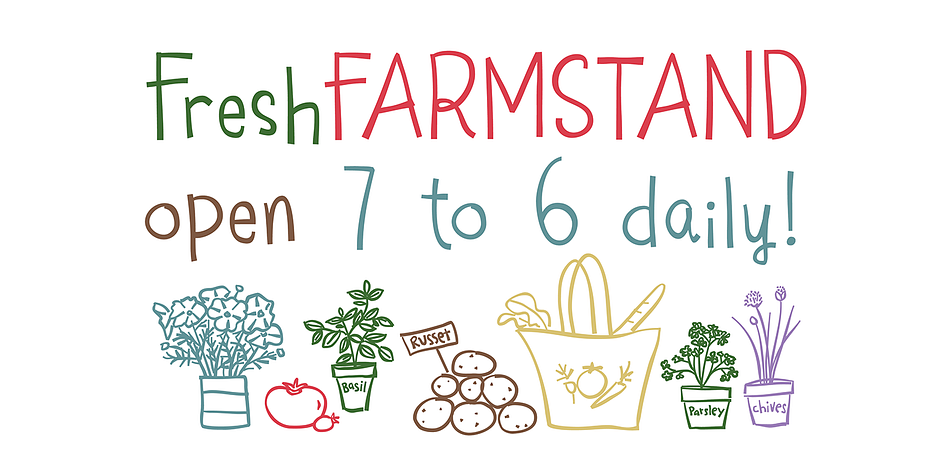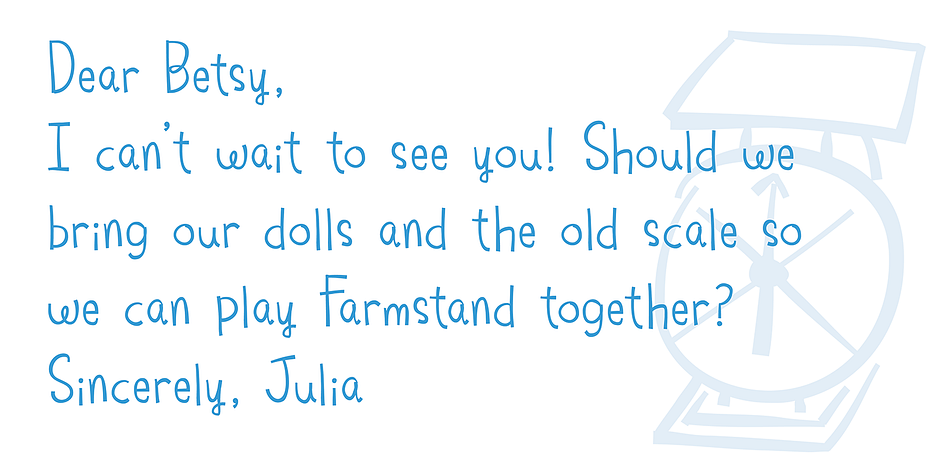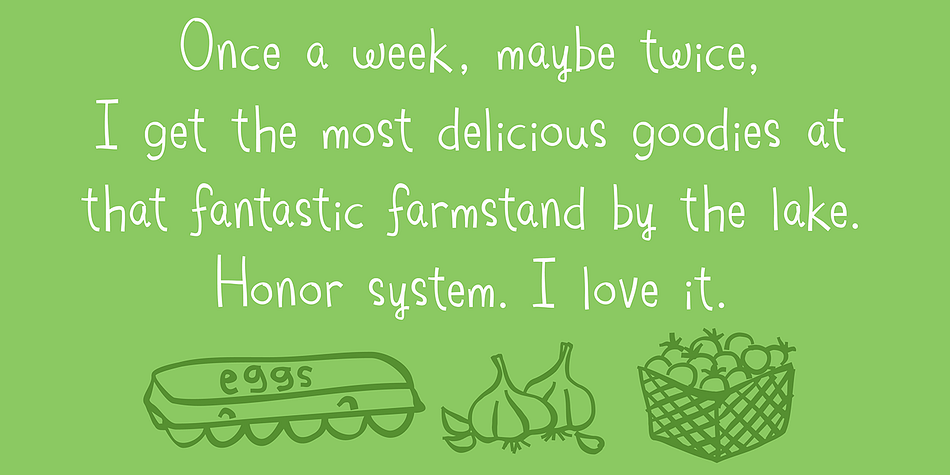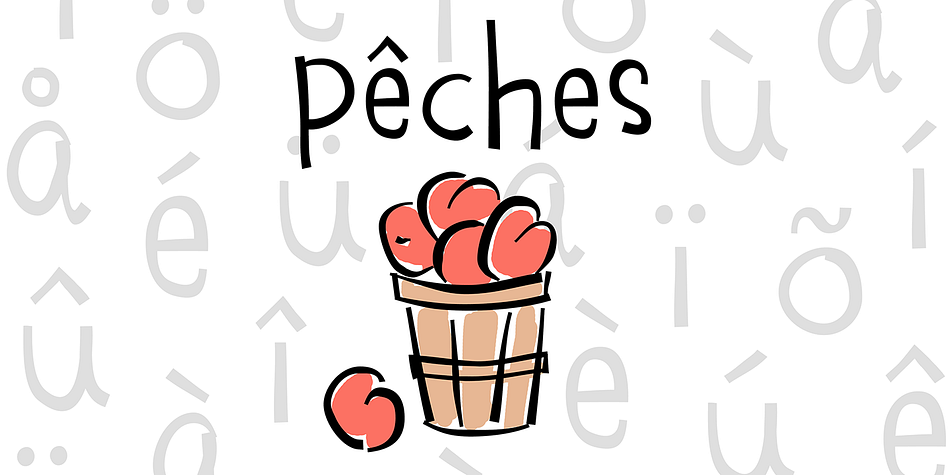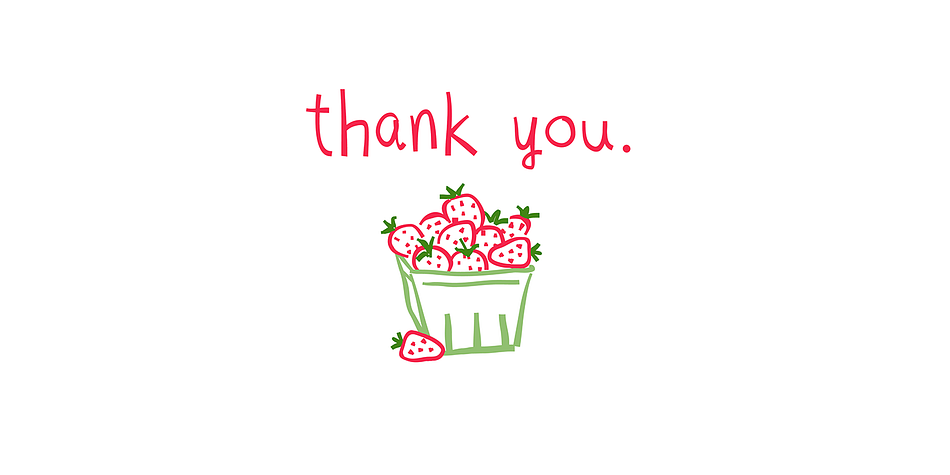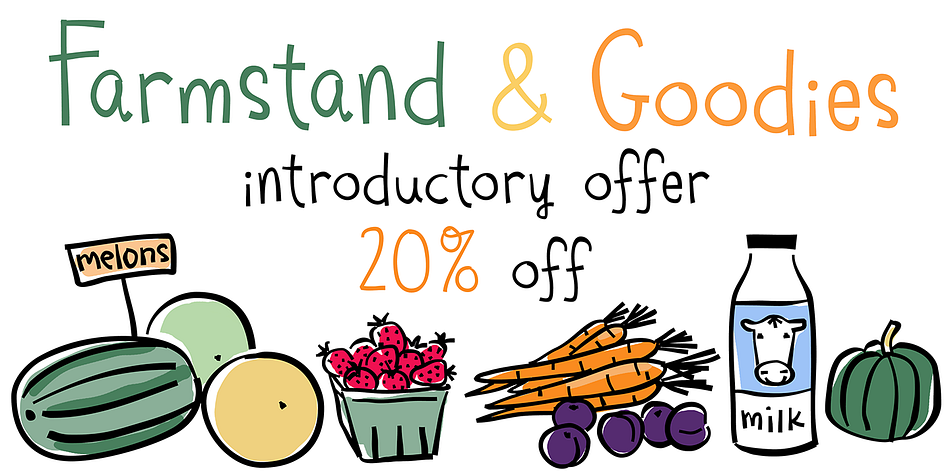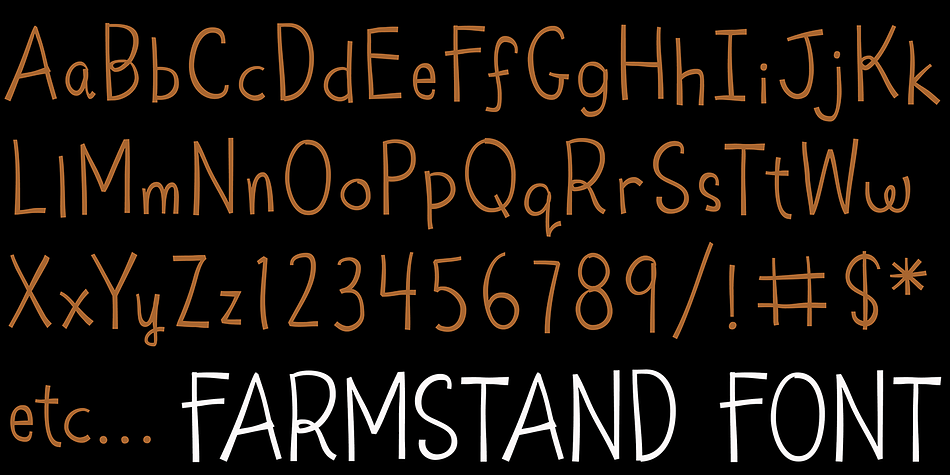
Designed by Amy Dietrich, Farmstand is a dingbat, hand drawn and kids font family. This typeface has two styles and was published by Atlantic Fonts.
Farmstand is a fresh and joyful font with the same kind-hearted feeling and naiveté of your local farmstand. Paired with Farmstand Goodies, 52 hand-drawn images of funky farmers’ fare, you can celebrate and have some pickles, savor sweet strawberries, or get creative with Cosmos. Sometimes life can be simple.